22 Stunning Handwritten Script Fonts for Designers in 2026
Handwritten Script Fonts can make logos, wedding stationery, beauty branding, labels, quotes, and social graphics feel more personal without losing polish. This collection gathers 22 script styles, from refined signatures and airy monoline fonts to bold brush lettering, retro scripts, and playful hand-drawn display fonts.
Elegant & Signature Handwritten Script Fonts
These refined scripts use slimmer strokes, graceful swashes, and polished signature shapes for wedding stationery, beauty branding, fashion marks, and personal logos.
Amelia Rose Font
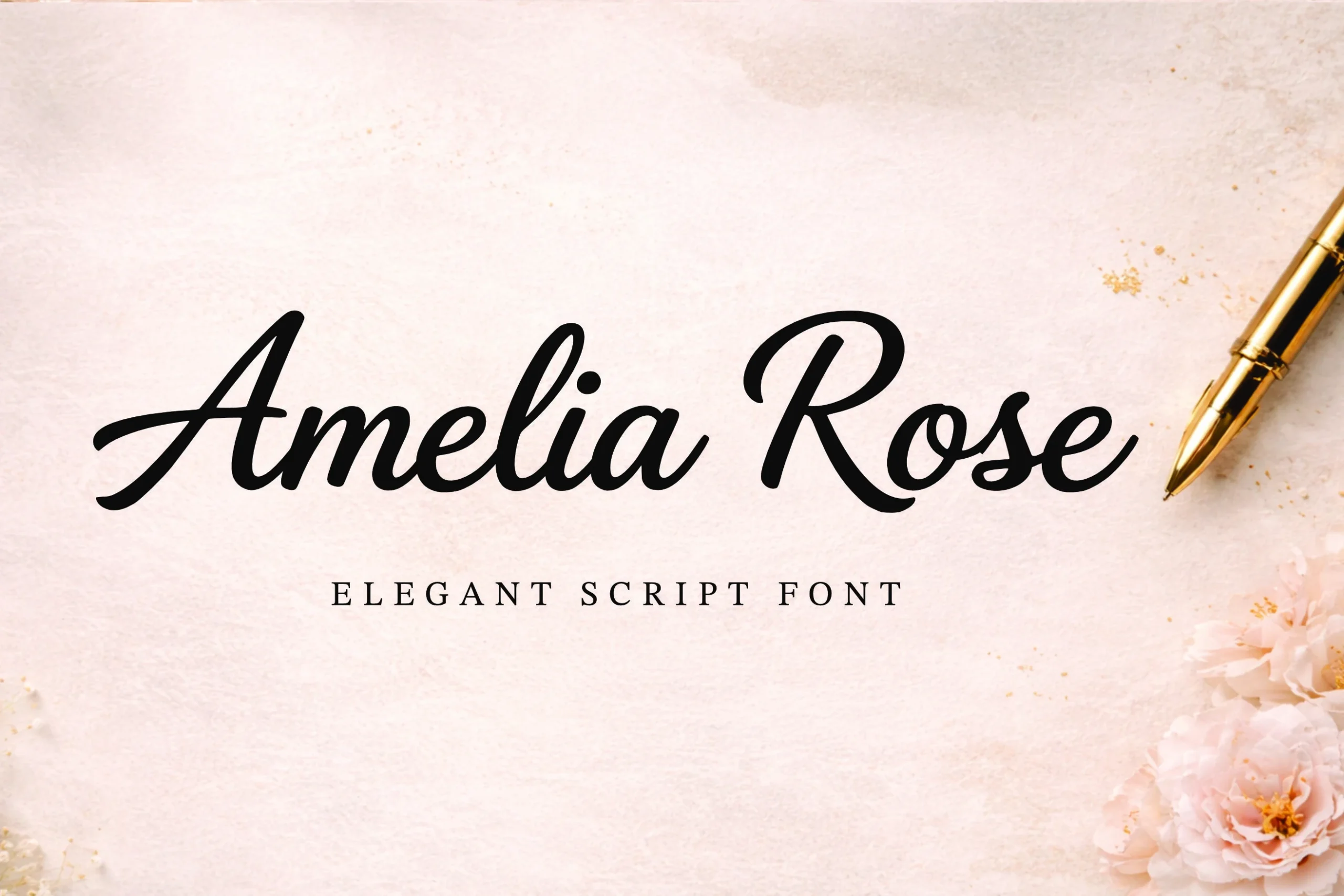
Best For: logos, invitations, wedding designs, beauty branding
Amelia Rose Font uses a polished script rhythm with thick, smooth strokes, rounded turns, and long entry and exit swashes that give each word a composed signature feel. The capitals carry most of the drama, while the lowercase forms stay connected and readable enough for refined display settings.
Use it where Handwritten Script Fonts need to feel premium without becoming fragile. Its wider horizontal movement works best with generous side spacing, strong contrast, and short title lines, especially for wedding marks, beauty logos, and romantic invitation headings.
Orchidia Font
Best For: signature logos, beauty branding, product labels, wedding designs
Orchidia Font has a light, graceful script style with long upright stems, rounded joins, and a dramatic uppercase O that gives the wordmark a refined first impression. The smooth stroke rhythm keeps it elegant without feeling fragile, while the open counters help the lowercase stay readable at display size.
For Handwritten Script Fonts that lean romantic rather than overly ornate, this one works best in short branding lines and invitation titles. Give the tall letters a little extra vertical space and pair them with restrained serif or sans text so beauty labels, wedding stationery, and signature logos feel polished.
Monoline Font
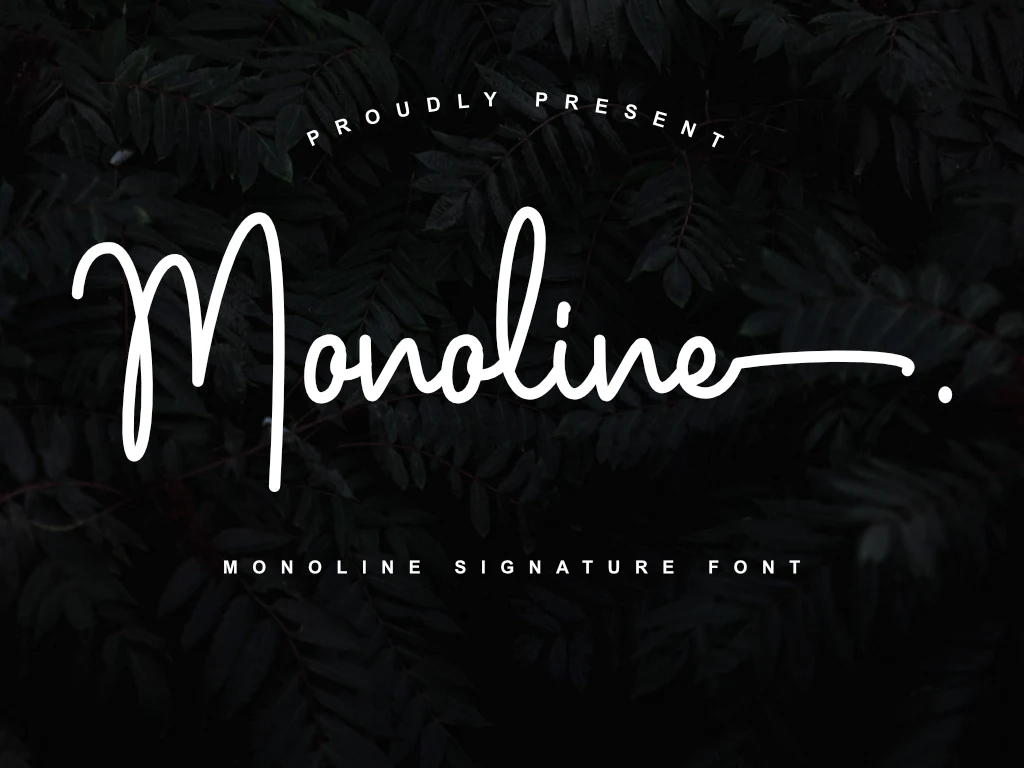
Best For: logos, personal branding, beauty branding, wedding designs
Monoline Font has a clean signature look built from a single slender stroke, with a tall opening capital, rounded joins, and a long finishing flourish that stretches confidently across the word. That even line weight keeps it airy and polished, so the script feels refined rather than overly decorative.
If you want Handwritten Script Fonts with a quieter luxury feel, this one works best in short names and marks where the extended terminal can stay visible. Give it generous spacing around the wordmark and pair it with restrained small caps or a simple serif for elegant logos, branding, and stationery.
Prontera Signature Font
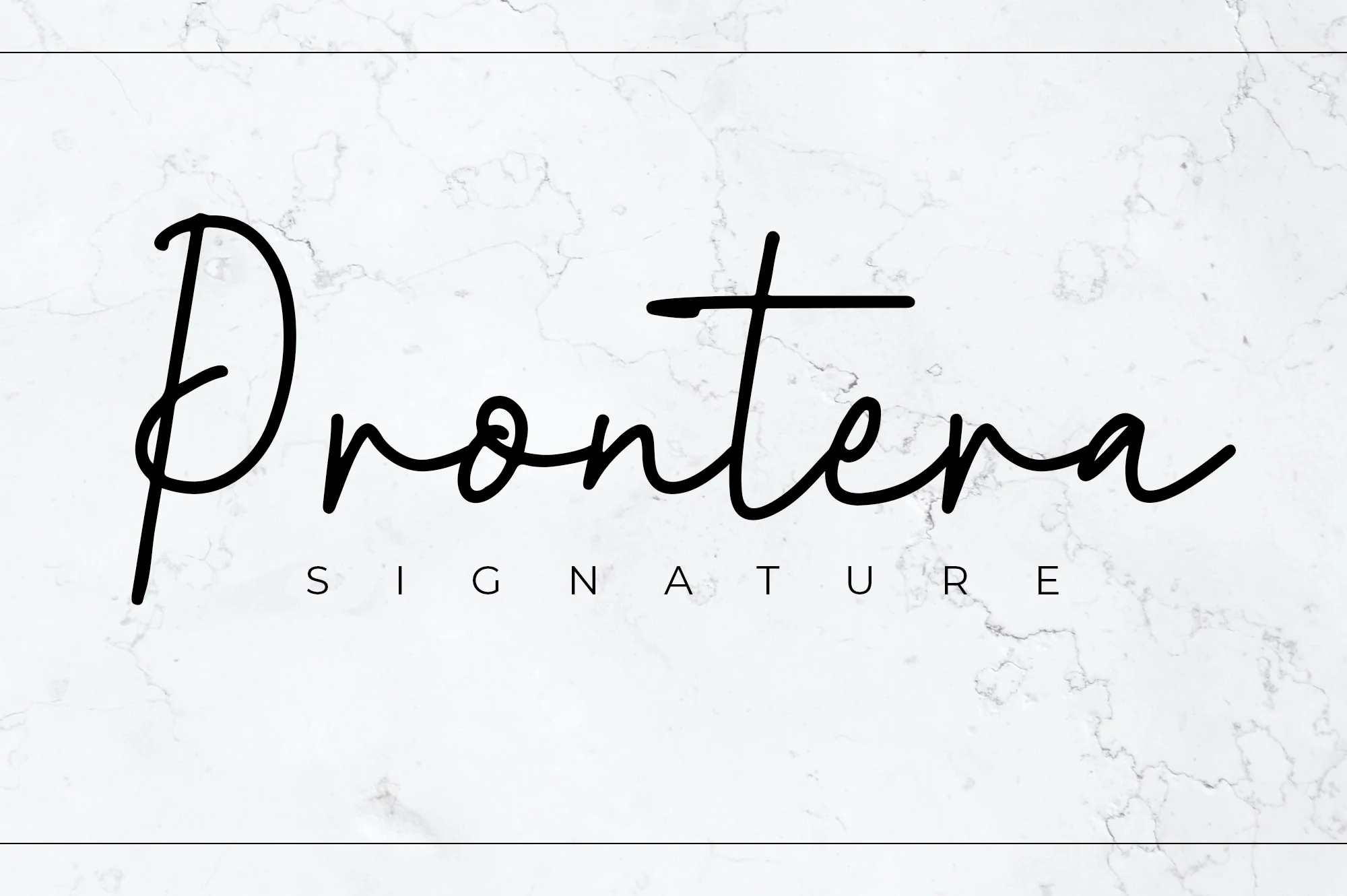
Best For: logos, personal branding, wedding designs, beauty branding
Prontera Signature Font has a light, flowing signature style with a tall opening P, rounded inner loops, and a long crossbar that gives the word a graceful horizontal sweep. The strokes stay slim and even, so the baseline movement feels elegant rather than overly decorative.
For Handwritten Script Fonts with a polished luxury mood, this one works best on short names and clean brand lines. Give it generous white space and pair it with understated uppercase text, which helps the delicate script hold its shape on logos, invitations, and refined beauty branding.
Beach Waves Duo Font
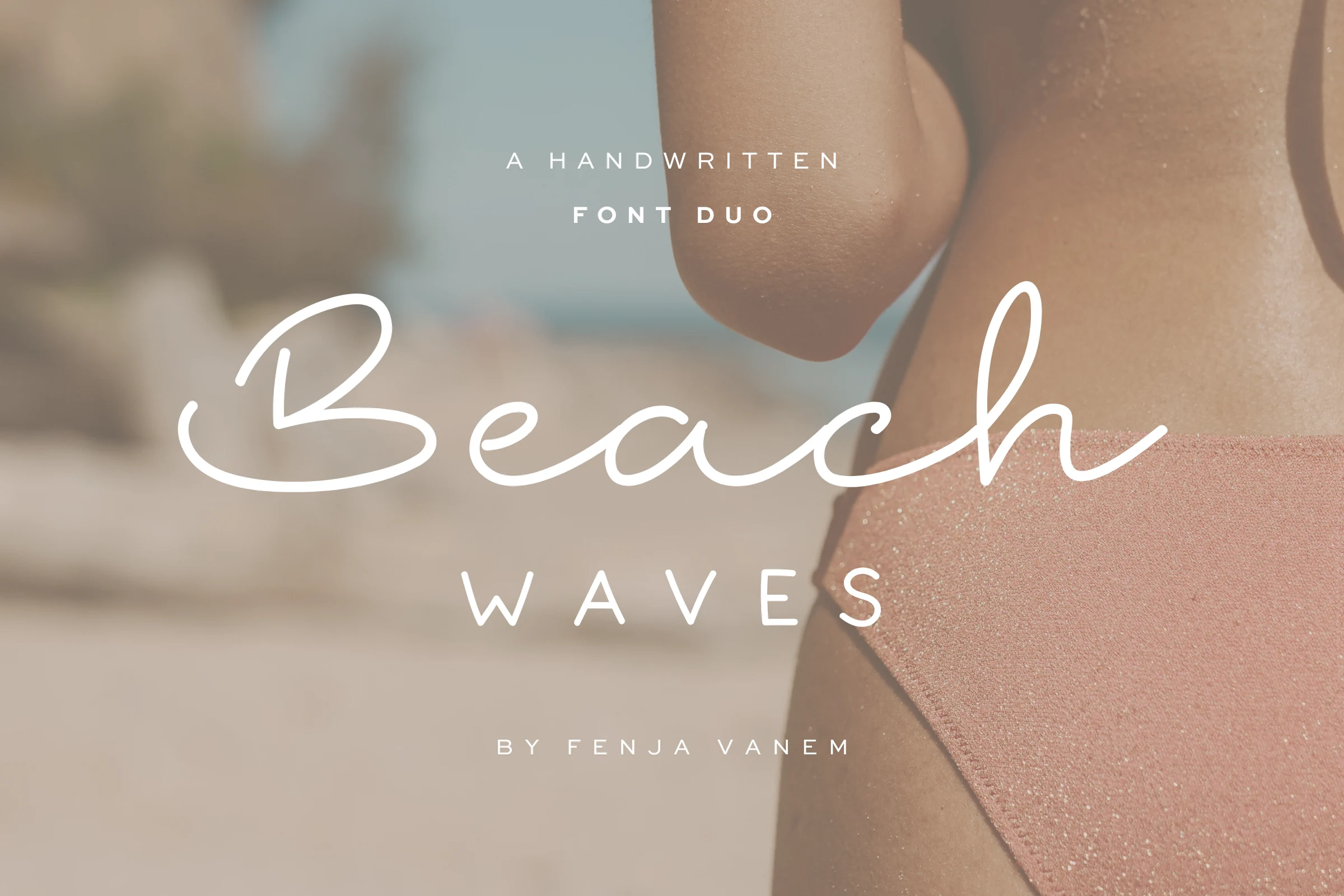
Best For: branding, invitations, fashion branding, soft designs
Beach Waves Duo Font pairs an airy monoline script with a widely spaced sans companion, creating a calm, sun-washed look instead of a heavy brush style. The script flows in long smooth curves with open loops, while the secondary uppercase line brings structure and keeps the overall feel polished.
That contrast makes it especially useful when Handwritten Script Fonts need both mood and hierarchy. Let the script lead the main phrase, then use the sans for taglines or supporting details. Generous spacing and restrained layouts suit it well, particularly for invitations, fashion branding, and relaxed coastal visuals.
Basskia Font
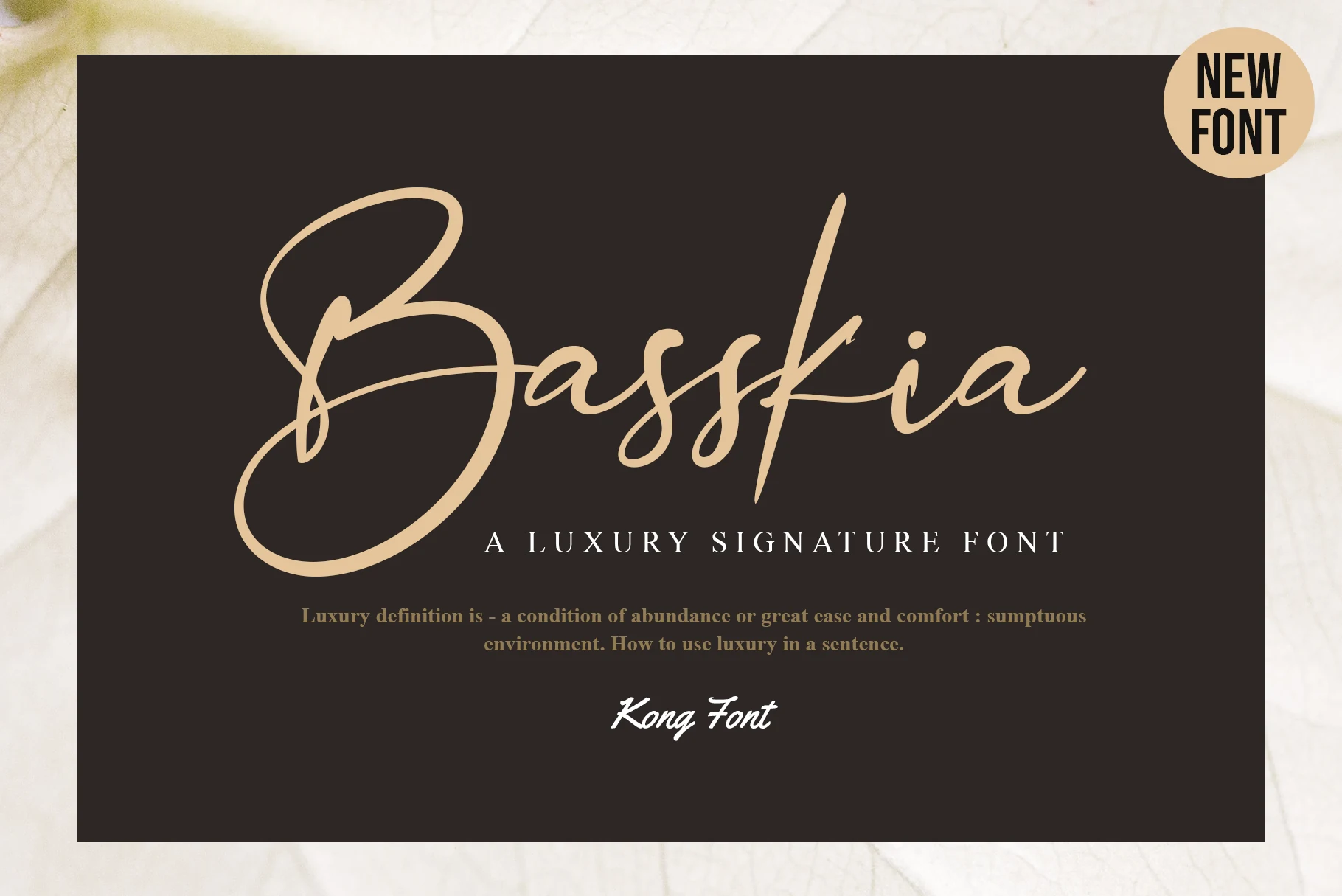
Best For: logos, personal branding, beauty branding, luxury designs
Basskia Font has the look of a refined signature, with a huge looping capital B, slim monoline strokes, and long crossing connections that give the wordmark a graceful sweep. The letters sit lightly on the line, so the style feels polished and airy rather than casual or chunky.
Within Handwritten Script Fonts, Basskia is strongest in short names and brand marks where the oversized opening stroke can act as the focal point. Give it plenty of negative space and pair it with restrained serif or spaced sans text, which helps the delicate line work stay crisp in elegant layouts.
Figure Font
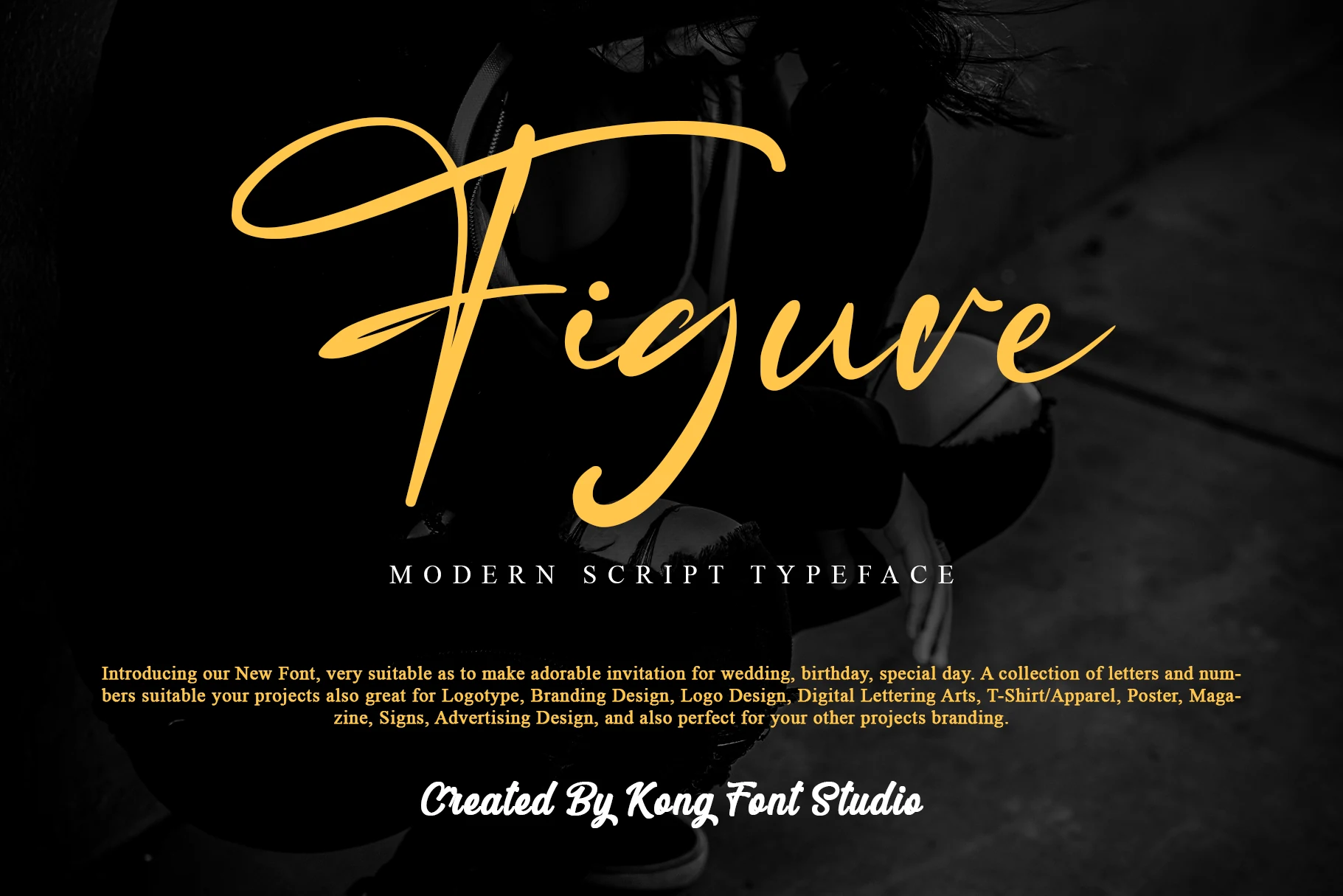
Best For: logos, invitations, fashion branding, personal branding
Figure Font has a sleek script structure with a dramatic looping capital, narrow oval counters, and long tapering terminals that give the lettering a polished, fashion-led feel. The strokes stay smooth and fairly even, so the style feels modern rather than ornate, with just enough flourish to stand out.
Within Handwritten Script Fonts, this one works best when you let the first letter lead the composition. The oversized entrance stroke can anchor a logo or invitation heading, while generous margins and a simpler secondary typeface keep the swashes from crowding the rest of the layout.
Calestine Calligraphy Font
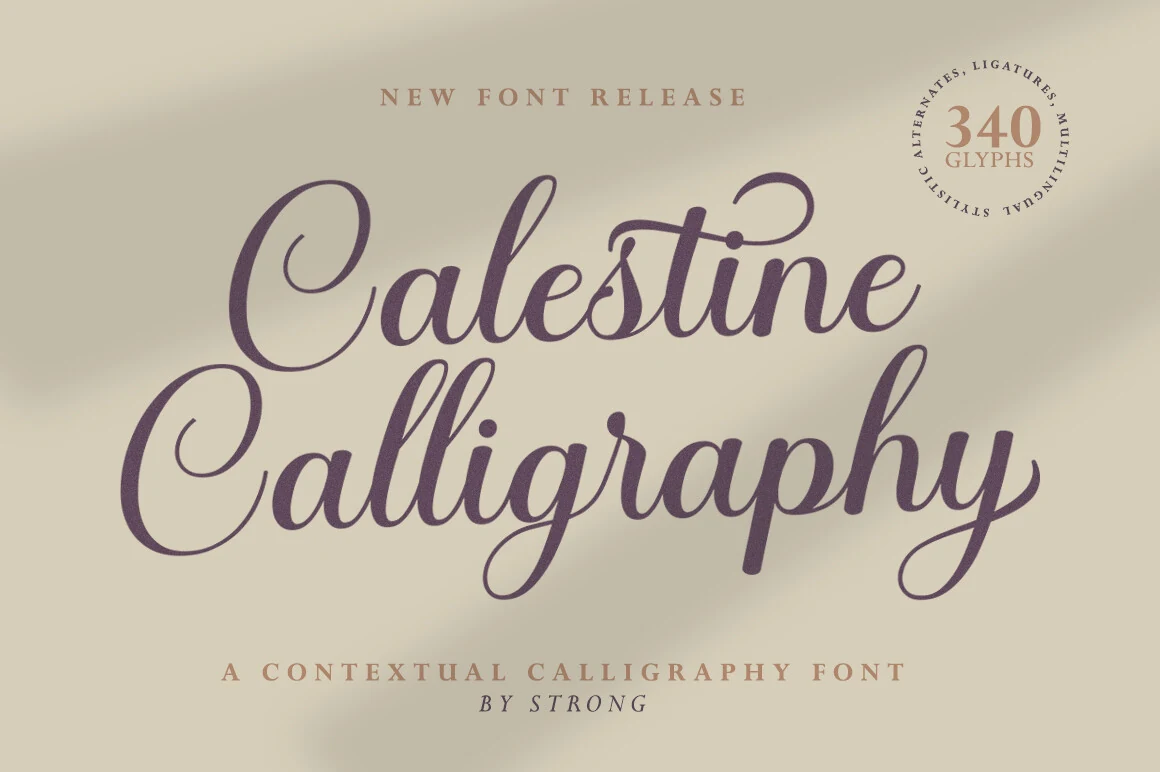
Best For: wedding designs, invitations, beauty branding, luxury designs
Calestine Calligraphy Font has a refined script rhythm with tall looping capitals, tapered joins, and slim finishing strokes that give each word a graceful lift. The letterforms feel delicate, but the structure stays balanced, so headlines look polished rather than overly ornate.
For Handwritten Script Fonts, this one is strongest in names, invitation headings, and short phrases where the long ascenders and descenders have room to stretch. Pair it with a restrained serif or light sans, and keep the surrounding layout airy so its elegant swashes stay crisp and easy to appreciate.
Bold & Flowing Handwritten Script Fonts
This group covers heavier connected scripts with rounded strokes and strong movement, ideal for logos, labels, social graphics, merch, and short statement headlines.
Eniceplay Font
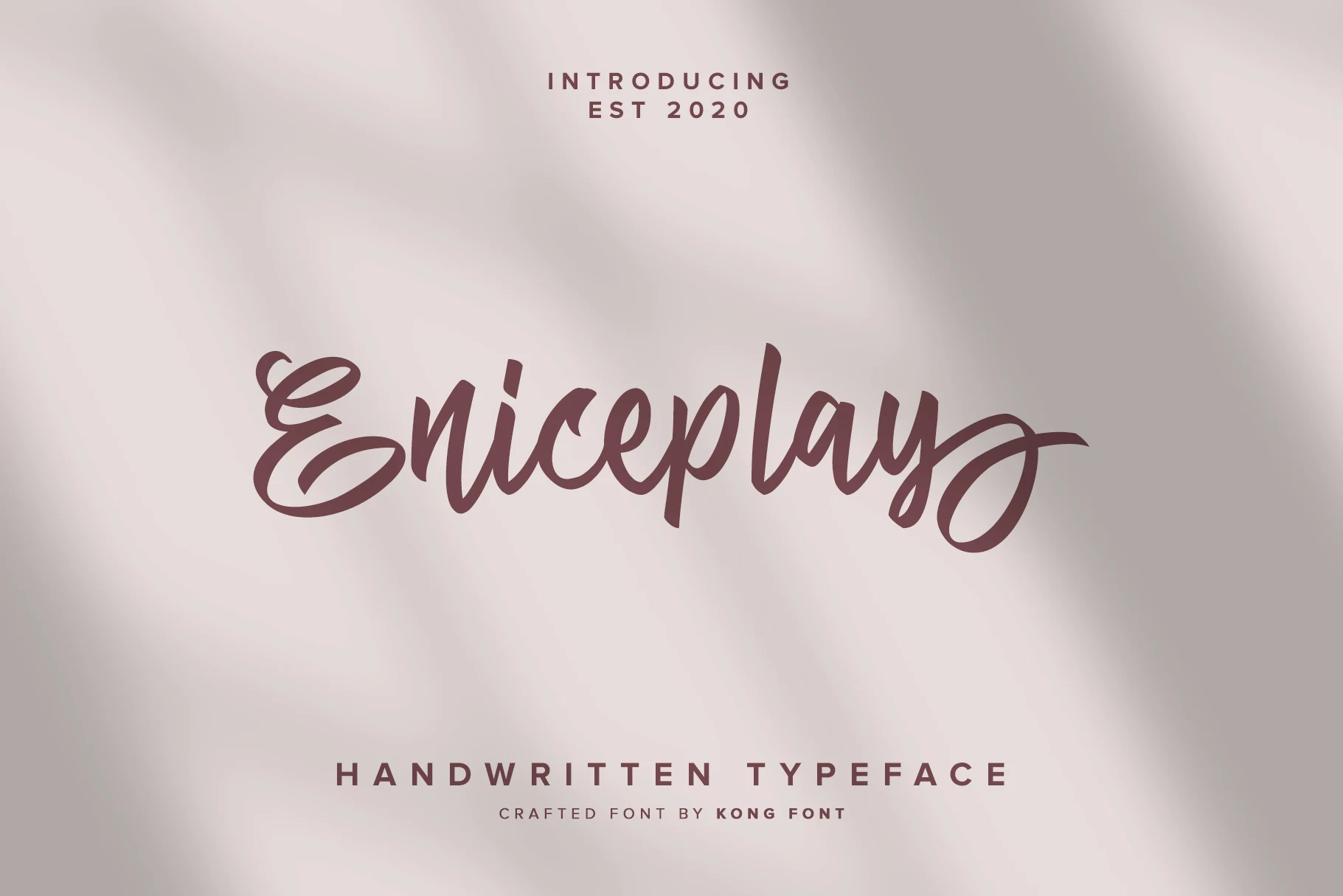
Best For: logos, social media graphics, stickers, quotes
Eniceplay Font has a lively brush-script feel, with thick rounded strokes, a buoyant baseline, and broad loops that give the wordmark plenty of movement. The capital E makes a strong first impression, while the long finishing swash on the y adds extra flair without overwhelming the rest of the letters.
It suits Handwritten Script Fonts projects that need warmth and energy rather than formal calligraphy. Keep it on short lines where the swashes have room to breathe, and pair it with simple all-caps text for contrast. PUA encoding also makes those decorative glyphs and swashes easier to use in crafting and logo layouts.
Coconut Bay Font
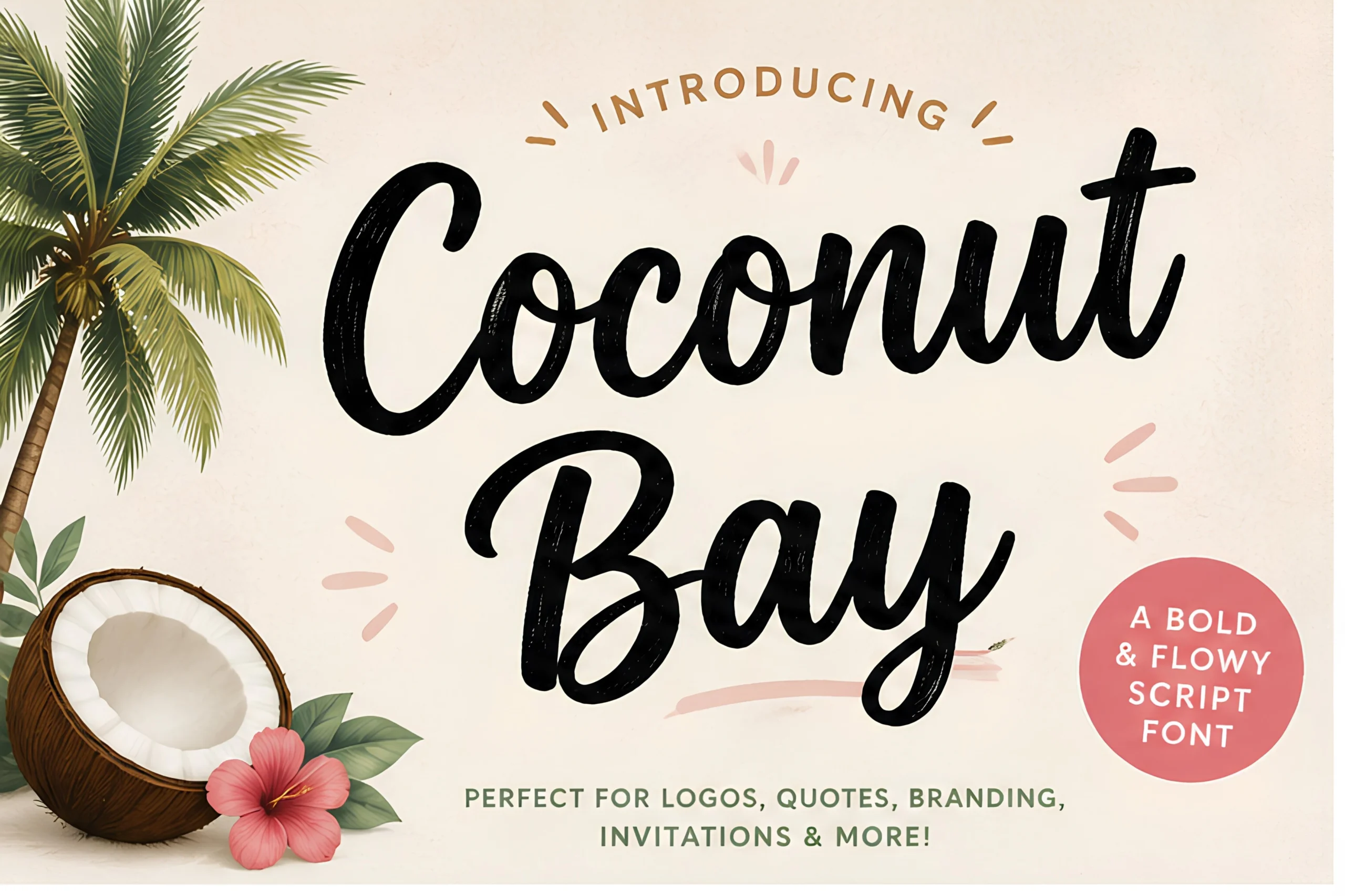
Best For: logos, quotes, branding, invitations
Coconut Bay Font has thick, rounded brush strokes and a buoyant script rhythm that makes the lettering feel open and upbeat. The oversized C and B create a strong focal point, while the smooth joins and soft curves keep the word shapes friendly instead of formal.
It suits Handwritten Script Fonts that need impact without turning stiff. Use it on short phrases where the wide lowercase forms and tall ascenders can spread comfortably, then pair it with compact sans-serif support text to keep logos, quotes, and invitation titles clear.
Santiago Font
Best For: logos, wedding designs, product labels, social media graphics
Santiago Font has a confident brush-script look, with broad strokes, rounded connections, and a large sweeping capital S that immediately sets the tone. The lowercase stays open and smooth, so even with its expressive curves and long descender, the word shape remains easy to read at display size.
For Handwritten Script Fonts that need warmth without losing polish, this one works especially well on short statements and prominent brand lines. Keep the script as the hero, then support it with restrained small caps or a clean serif underneath to sharpen hierarchy on labels, invitations, and logo treatments.
Fantasia Font
Best For: logos, branding, T-shirts, creative projects
Fantasia Font has a lively modern script style with a sweeping capital F, rounded joins, and long smooth strokes that give the lettering a strong sense of movement. The forms are broad and open, so even with its dramatic swashes, the word stays readable and confident at display size.
For Handwritten Script Fonts that need a bold hero line, Fantasia works best on short names and statement text. Let the script lead, then pair it with spaced sans-serif support text to sharpen hierarchy and keep logos, T-shirts, and branding layouts from feeling crowded.
Madison Script Font
Best For: logos, social media graphics, headlines, short phrases
Madison Script Font leans into bold, flowing curves rather than delicate formal calligraphy. The tall capitals, rounded bowls, and smooth joins give it a lively rhythm, while the thick strokes keep each word prominent and easy to catch at a glance.
If you like Handwritten Script Fonts with real display weight, this one works especially well for short headlines and logo-style wording. Because the letters are dense and sweeping, a little extra line spacing and open surrounding space help the swashes breathe, especially when paired with a clean sans serif for contrast.
Botanique Font
Best For: logos, social media graphics, merch design, quotes
Botanique Font has a bold handwritten flow with rounded joins, steady stroke weight, and a sweeping capital B that gives the line an instant focal point. The script feels friendly and decorative without getting fussy, thanks to its open counters and smooth, connected rhythm.
If you are comparing Handwritten Script Fonts for branding or quote-led layouts, Botanique stands out best in short phrases where the first letter can lead the composition. A spaced sans serif works well beside it, and the thicker strokes help it stay clear on social graphics and merch where finer scripts often lose impact.
Birawa Font
Best For: logos, social media graphics, website headers, short phrases
Birawa Font has a confident script shape with thick, rounded strokes, a generous looping capital B, and smooth joins that keep the wordmark flowing from left to right. The letters feel bold and modern, but the curves stop it from looking stiff, giving the line a clean handwritten energy.
If you’re browsing Handwritten Script Fonts for standout display use, Birawa works best when the word itself is allowed to carry the composition. Its heavier stroke weight holds up well on digital graphics, while a simple all-caps sans alongside it creates a clear hierarchy and keeps the script from feeling crowded.
Vintage & Retro Handwritten Script Fonts
These scripts bring sign-painter rhythm, chunky swashes, and nostalgic display weight for packaging, menus, badges, posters, and retro-inspired brand marks.
Swept Away Duo Font
Best For: logos, branding, social media graphics, posters
Swept Away Duo Font gives you two clear voices in one set: a loose script with thick brushy curves and tapered joins, plus a tall uppercase companion with a bolder, more poster-like stance. That mix creates stronger hierarchy than a single script alone, especially when you want the headline to feel handmade but still easy to organize.
It works well when Handwritten Script Fonts need both personality and structure. Let the flowing style carry the main word, then use the upright caps for subheads or taglines. A little extra tracking on the uppercase layer helps the pair breathe, which keeps logos, posters, and social graphics from looking crowded.
Greatwriten Font
Best For: logos, posters, signage, restaurant menus
Greatwriten Font leans into a tall, slanted script style with narrow proportions, smooth joins, and a broad underline sweep that gives the lettering a vintage sign-painted feel. The strokes stay bold and steady, so the word shape feels compact and assertive rather than loose or overly casual.
It works best when Handwritten Script Fonts need headline presence with a touch of retro polish. Use it for short titles, logos, or menu headers, and give the condensed letters a little breathing room so the rhythm stays clear. A simple serif or spaced small caps underneath helps build a stronger hierarchy.
Montana Font
Best For: logos, headlines, T-shirts, nostalgic designs
Montana Font uses thick cursive strokes, broad rounded turns, and a steady rightward slant that gives the lettering real momentum. The oversized capitals and long cross stroke on the t make it feel assertive, while the smooth joins keep the word shape readable even at a distance.
It stands out when Handwritten Script Fonts need headline strength rather than a delicate signature look. Keep it on short titles or logotypes where the heavier strokes can carry the design, then add a clean sans serif underneath for contrast so merch, posters, and branding stay sharp instead of crowded.
Batuphat Font
Best For: logos, packaging, product labels, retro designs
Batuphat Font has a heavy connected script build, with rounded terminals, thick downstrokes, and long looping swashes that push the lettering into a confident display style. Its calligraphic influence is clear, but the soft curves and chunky proportions give it a more contemporary, logo-ready attitude.
For Handwritten Script Fonts with strong vintage character, Batuphat works best when the words are short and the spacing is controlled. The wide swashes need room at the edges, while high contrast against a simple background keeps the dense strokes readable for packaging, badges, and bold brand marks.
Playful & Textured Handwritten Script Fonts
These casual scripts use chunky forms, marker energy, or brush texture for stickers, quotes, posters, kids’ graphics, and other designs that need quick impact.
Elisein Font
Best For: quotes, social media graphics, stickers, children’s designs
Elisein Font has a chunky handwritten style with rounded brush strokes, soft terminals, and a lively bounce that keeps the lettering cheerful. The thick shapes give it strong visibility, while the open counters and smooth joins stop it from feeling heavy.
For Handwritten Script Fonts that need quick impact, this one works especially well in short headlines and craft-friendly layouts. Give it a little extra line spacing and pair it with a plain sans serif so the playful rhythm stays clear on quotes, stickers, and bright social posts.
Sevarozi Font
Best For: headlines, posters, stickers, bold designs
Sevarozi Font has a punchy hand-drawn look built from thick strokes, blunt terminals, and slightly uneven curves that keep the letters lively instead of polished. The forms feel compact and weighty, with a quick marker-made rhythm that gives short words plenty of presence.
It fits Handwritten Script Fonts projects that need energy more than delicacy. Keep it large and concise, then pair it with a narrow sans or spaced uppercase subhead so the heavy shapes do not crowd each other. That contrast works especially well for posters, stickers, and bold title treatments.
Hiatus Font
Best For: logos, branding, posters, T-shirts
Hiatus Font has a dry-brush look with broken edges, thick downstrokes, and quick tapered ends that keep the lettering raw and energetic. The tall t and broad finishing s add movement across the word, while the uneven texture gives it more grit than a polished script.
Use it when Handwritten Script Fonts need a cooler, more casual punch. It works best at larger sizes where the brush texture can stay visible, especially on logos, ads, and apparel graphics. Pair it with clean uppercase support text to keep the layout sharp instead of overly busy.
Conclusion
Choose elegant signature scripts for premium branding and invitations, bold flowing styles for visible logos and merch, vintage scripts for nostalgic packaging, and playful textured fonts for casual graphics. The best Handwritten Script Fonts are the ones that match both the tone of the design and the amount of space available for swashes, loops, and letter movement.